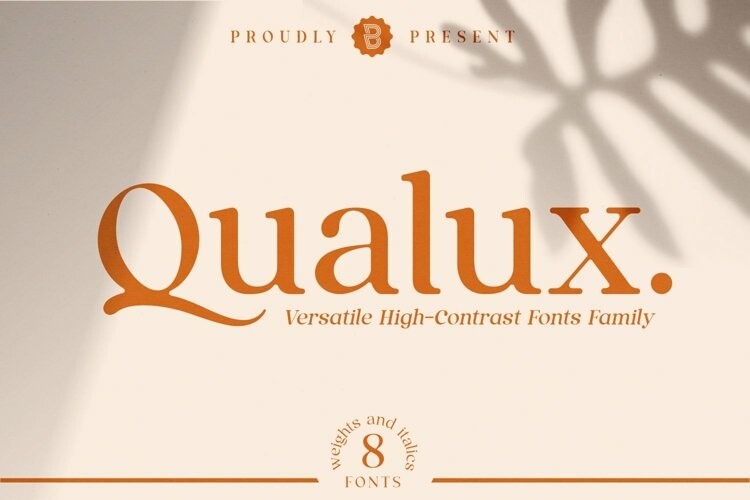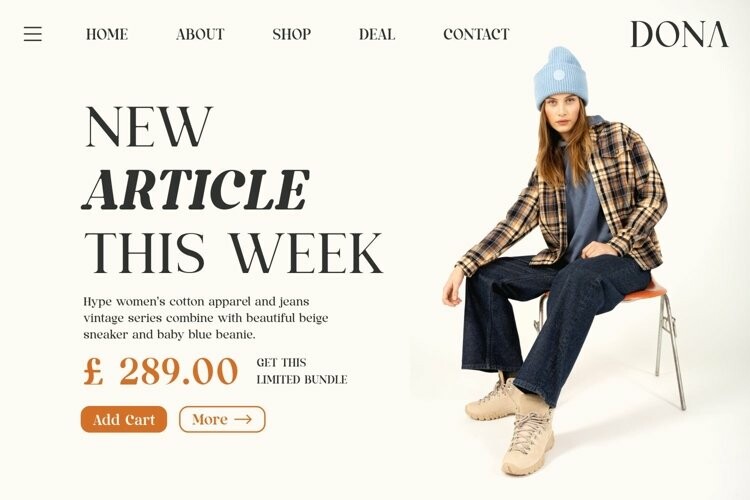
Qualux Font
Qualux FontQualux is a versatile high-contrast serif font family. Qualux comes from the words Quality and Luxury. This font has vintage characteristics with a luxurious style in light, but also has a friendly and playful style in bold. Each glyph has a soft, rounded tip. This font is suitable for many various projects such as logos, branding, magazines, signage, fashion and many more.